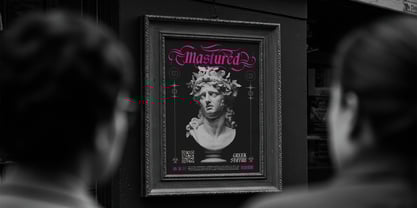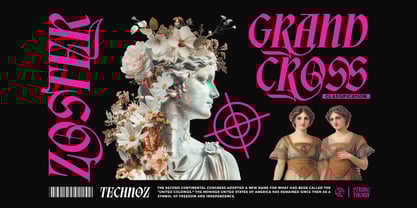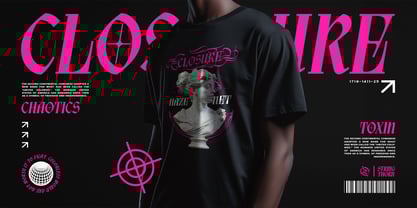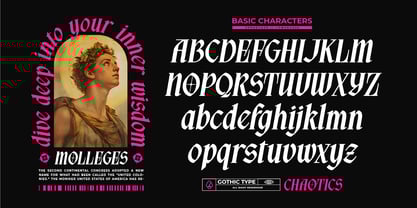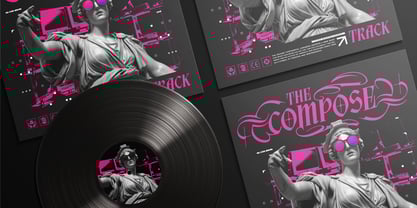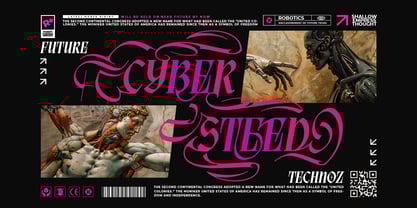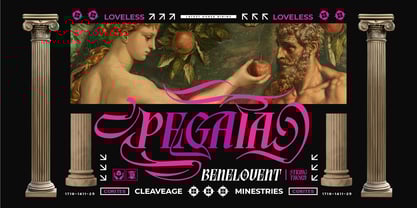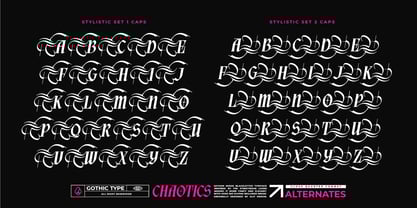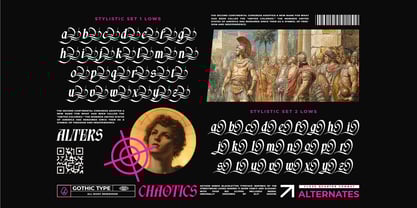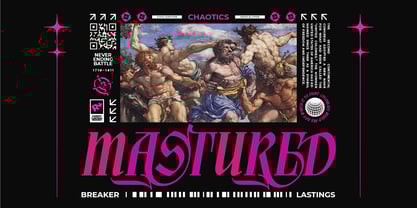
Aethon Keros
by Alit Design
The Aethon Keros Font Family was designed by Alit Suarnegara and published by Alit Design. Aethon Keros contains 1 styles. More about this family
Where Ancient Myth Meets Future Chaos: The Ultimate Neo-Gothic Experience. Unleash the untamed power of Aethon Keros, a blackletter typeface that refuses to be ignored. Inspired by the raw aggression of streetwear culture and the timeless intricate beauty of medieval calligraphy, this font is a "Grand Cross" of eras—blending the divinity of the renaissance with the rebellion of modern brutalism. Aethon Keros is not just a font; it is a visual weapon. It features sharp, deadly strokes contrasted by elaborate, flowing swashes that mimic the movement of a stallion in battle. Whether you are designing for a high-end streetwear brand, a heavy metal album cover, or an avant-garde editorial spread, Aethon Keros delivers a look that is both malevolent and majestic. The Core of Creation: With a massive library of 953 Glyphs, Aethon Keros offers an insane level of customization. It goes beyond standard typing; it allows you to weave words into artwork. The font includes comprehensive Stylistic Sets (SS01, SS02) for both uppercase and lowercase characters, giving you the freedom to choose between legible strength or ornate, chaotic flourishes. Neo-Gothic Aesthetic: A perfect hybrid of traditional blackletter and futuristic "acid graphics" vibes. Massive Glyph Count: Includes 953 distinct glyphs, providing endless variation. Extensive Alternates: Features multiple Stylistic Sets (Caps & Lows) to create custom wordmarks that look hand-lettered. Aggressive Elegance: Sharp terminals, dynamic swashes, and a "Divine Heroic" stance. Versatile Application: Designed specifically for large-scale displays—headlines, logos, merchandise, and poster art. Perfect For: Streetwear & Urban Fashion Brands Music Merch (Metal, Phonk, Trap, Techno) Album Cover Art Tattoo Design & Typography Brutalist & Acid Graphic Posters Logo Design & Branding Unchain your creativity. Ride the chaos. Download Aethon Keros today.